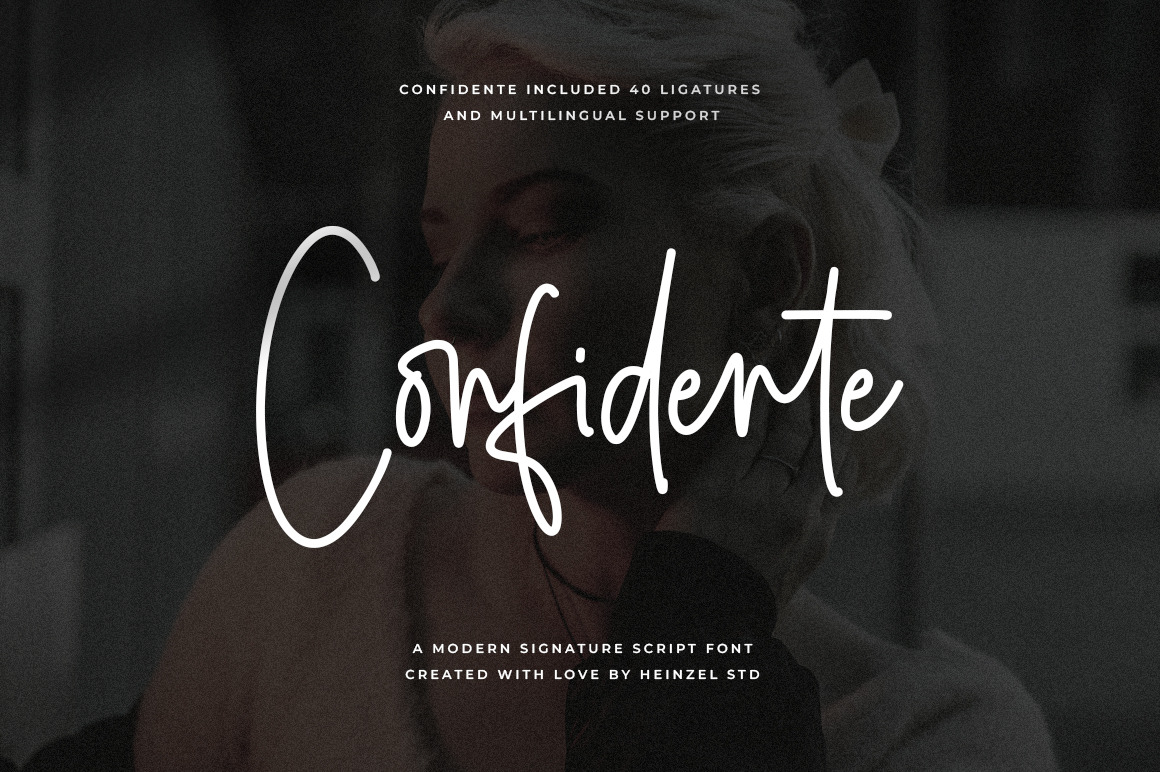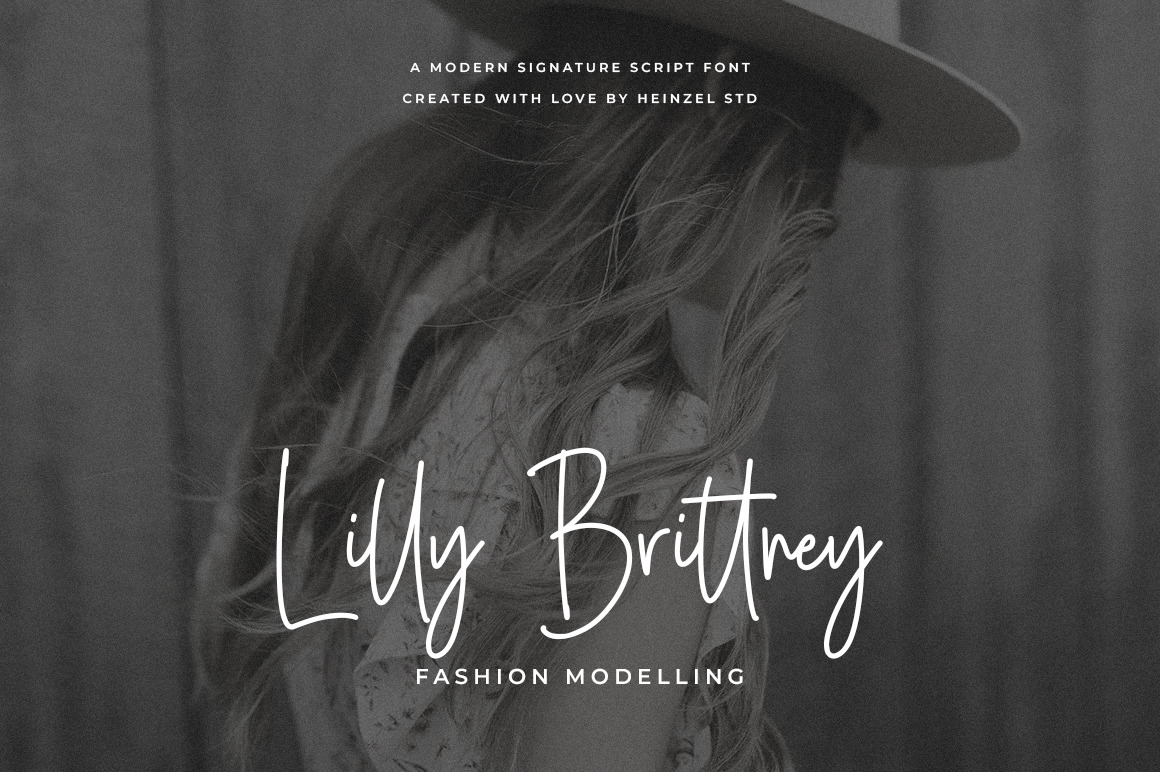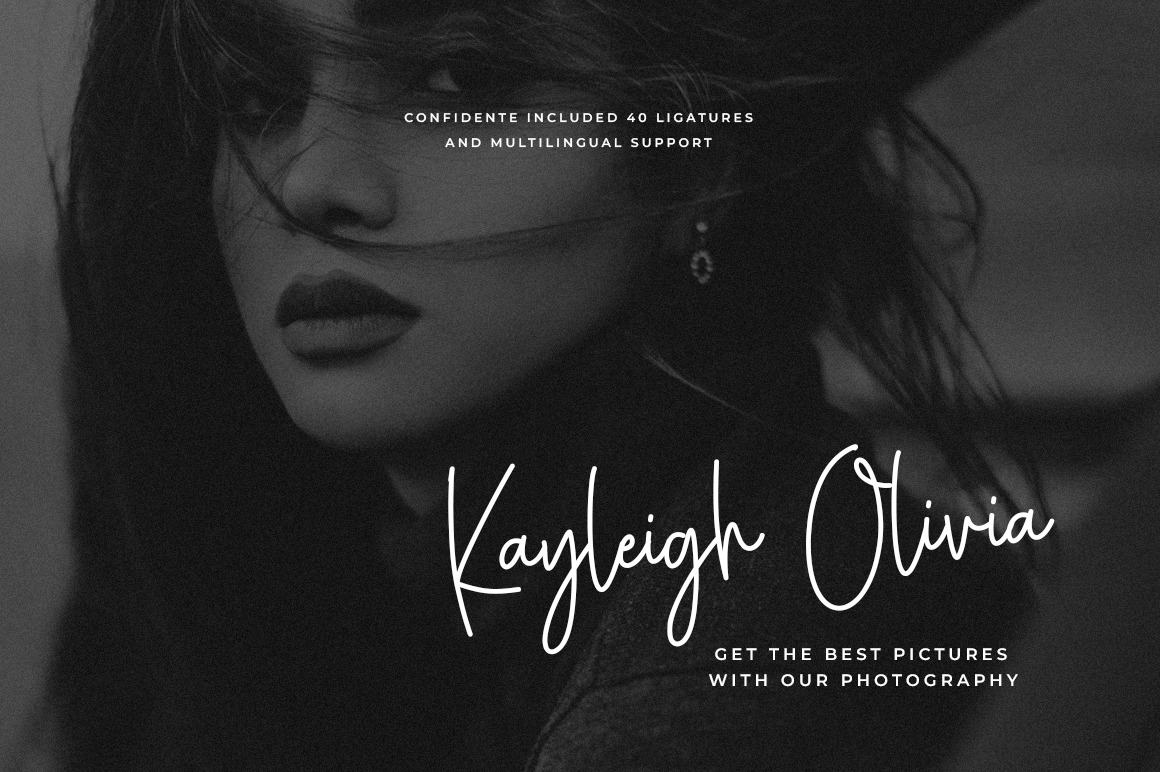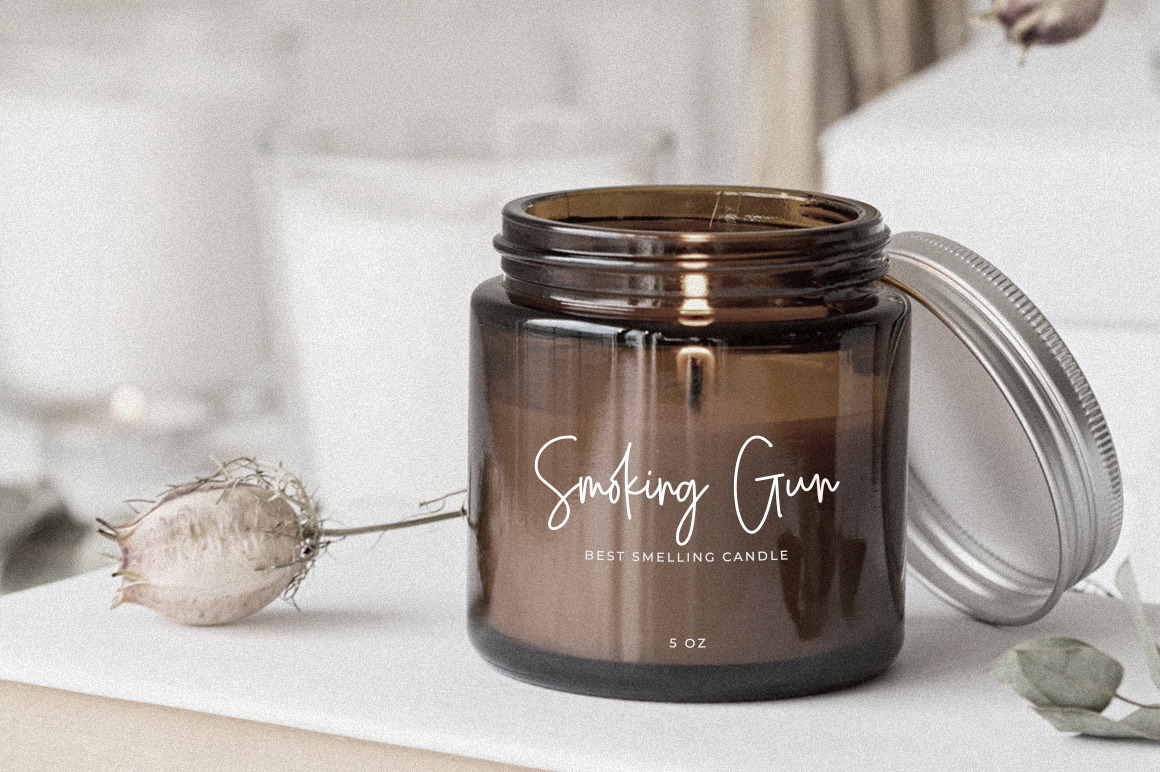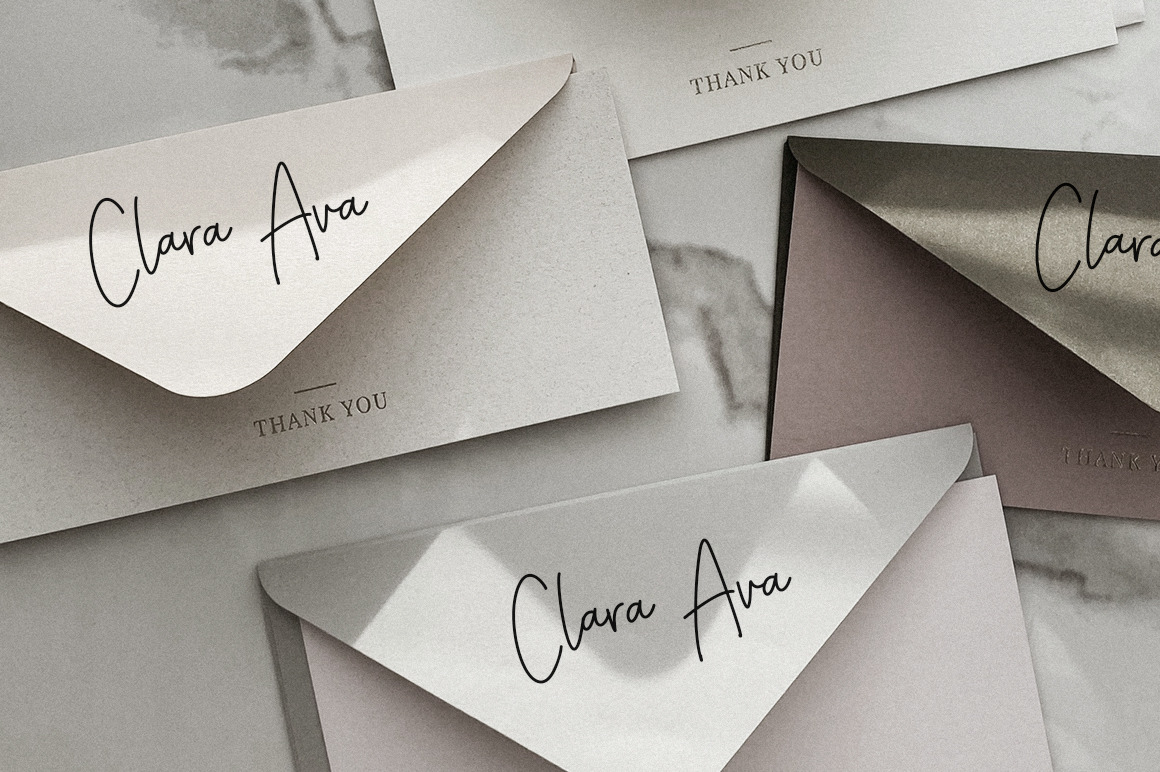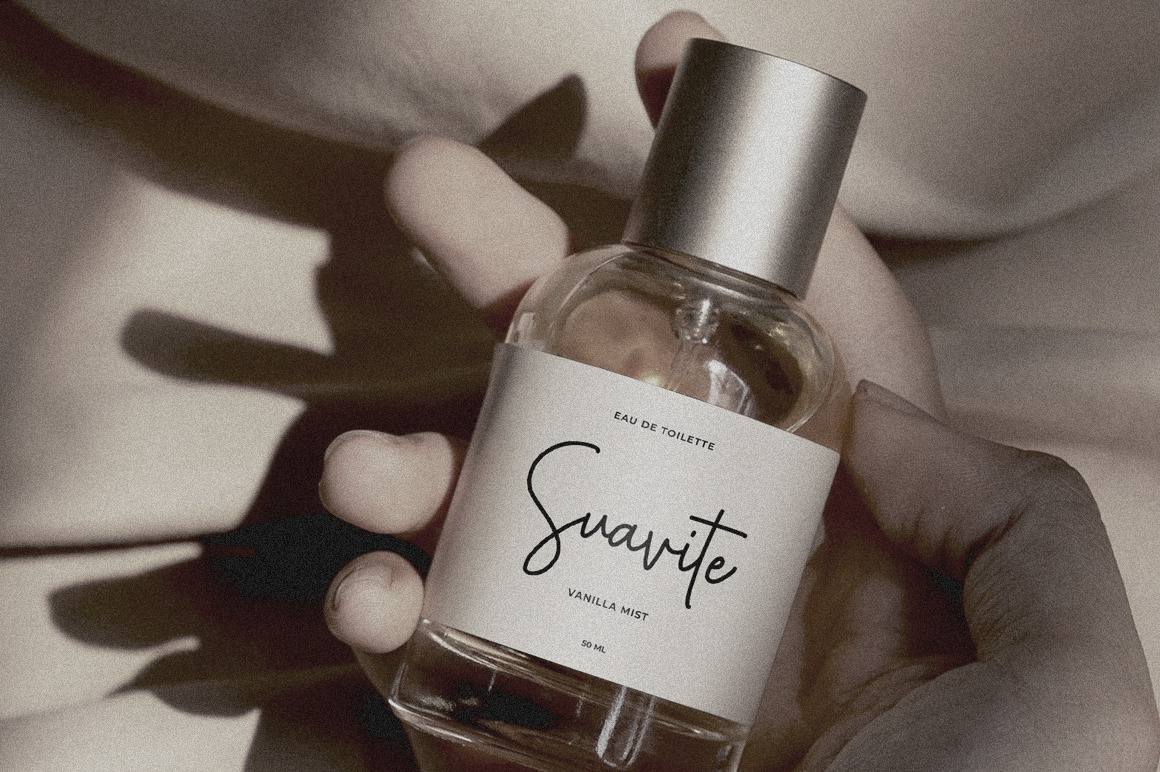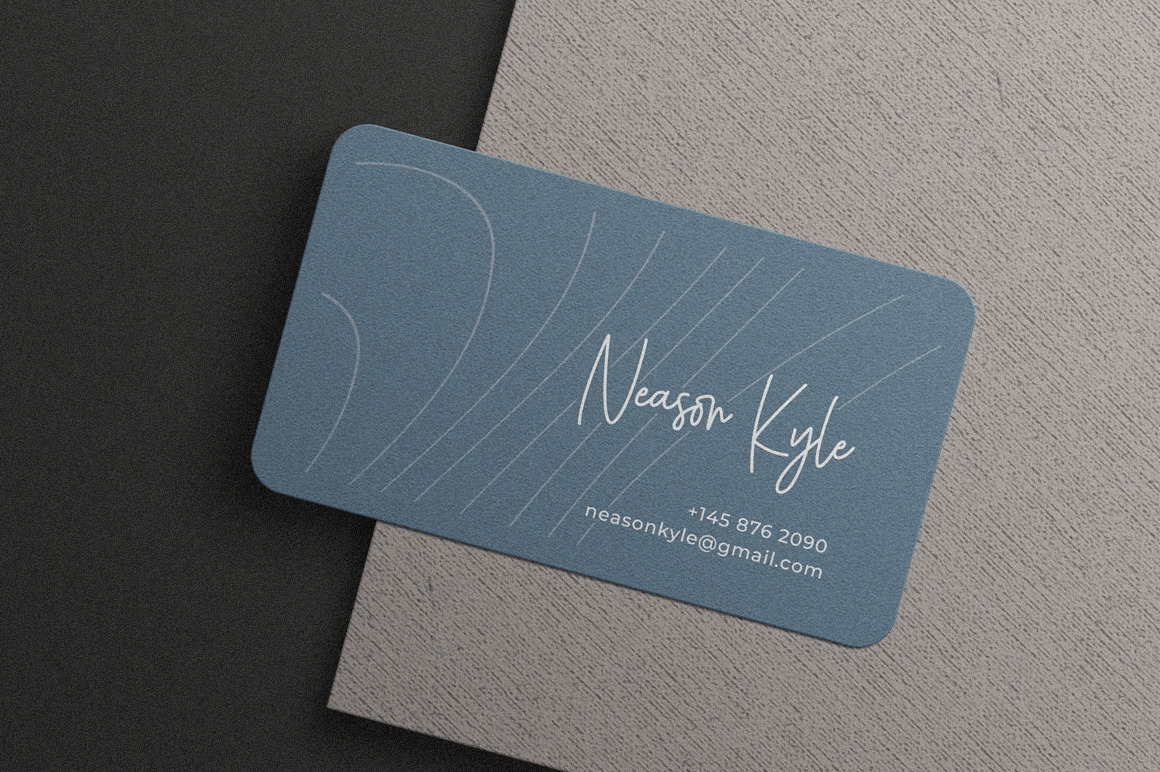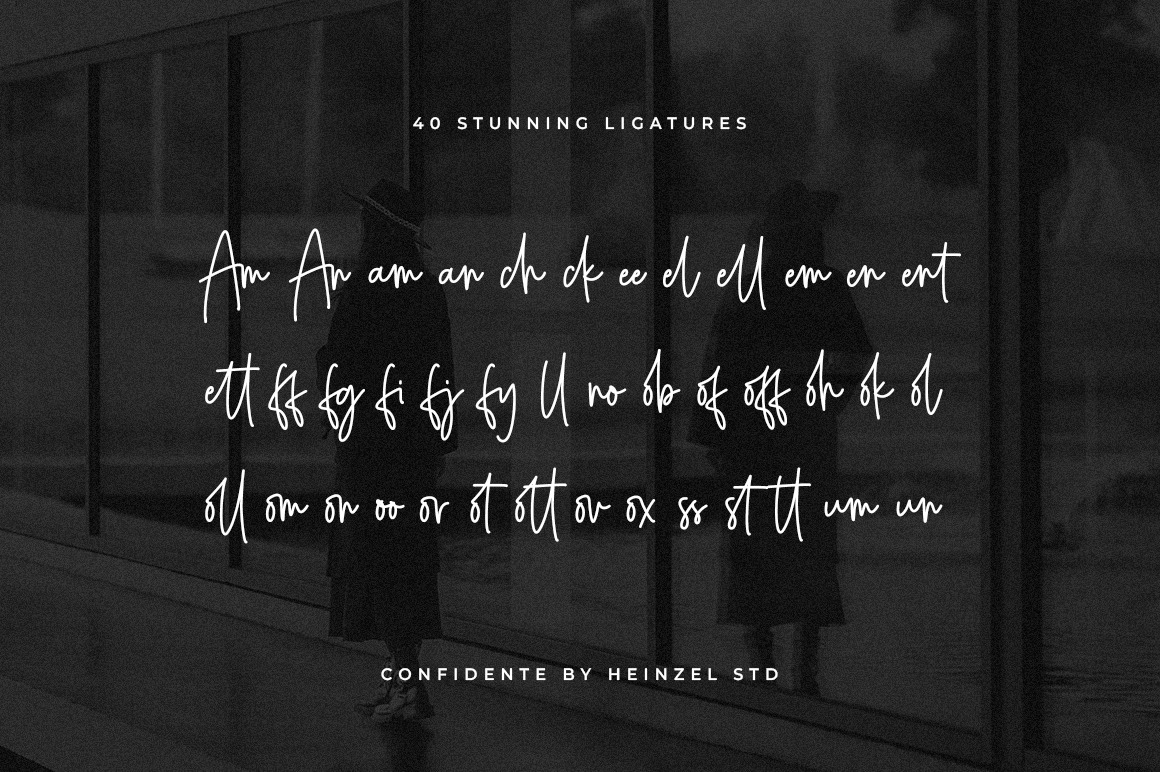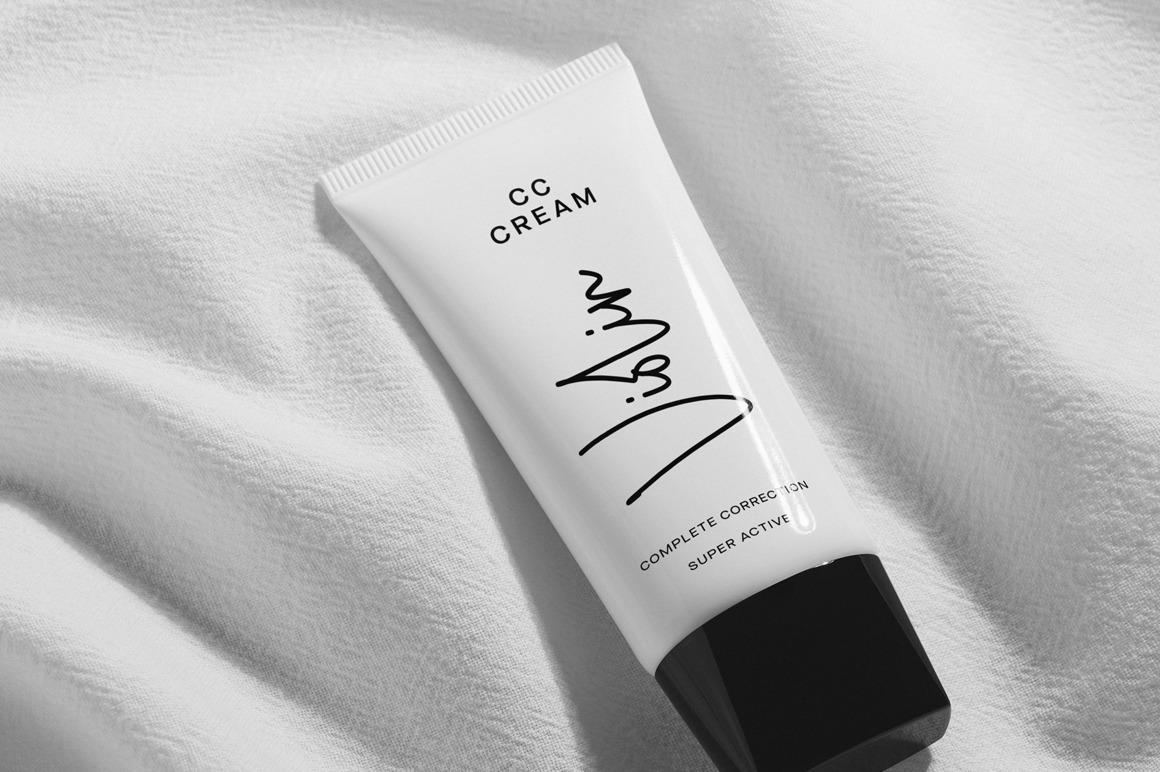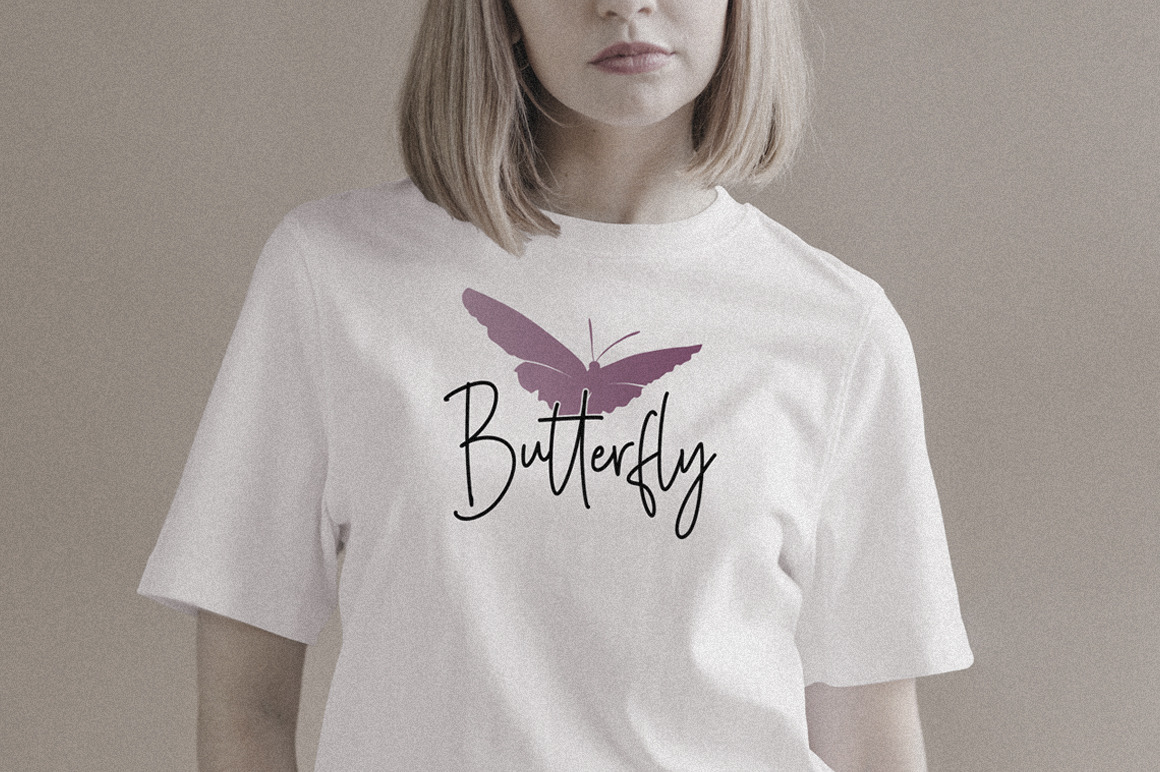
Confidente Signature Font
Confidente Signature is a flowing handwritten font, described by an elegant touch, perfect for your favorite projects. It looks stunning on wedding invitations, thank you cards, quotes, greeting cards, logos, business cards and every other design which needs a handwritten touch. Fall in love with its incredibly distinct and timeless style and use it to create spectacular designs! Confidente Signature is PUA encoded which means you can access all of the glyphs and ligatures with ease!